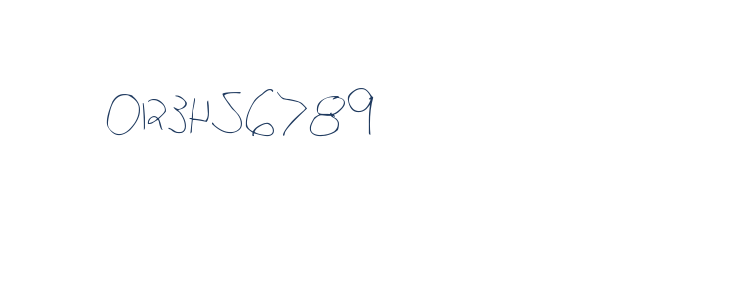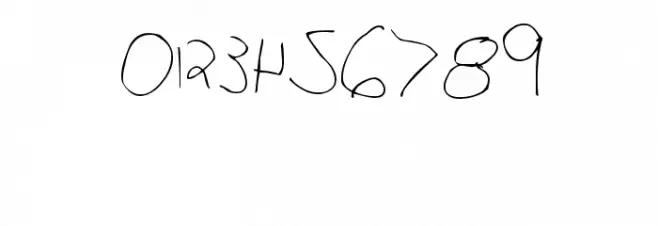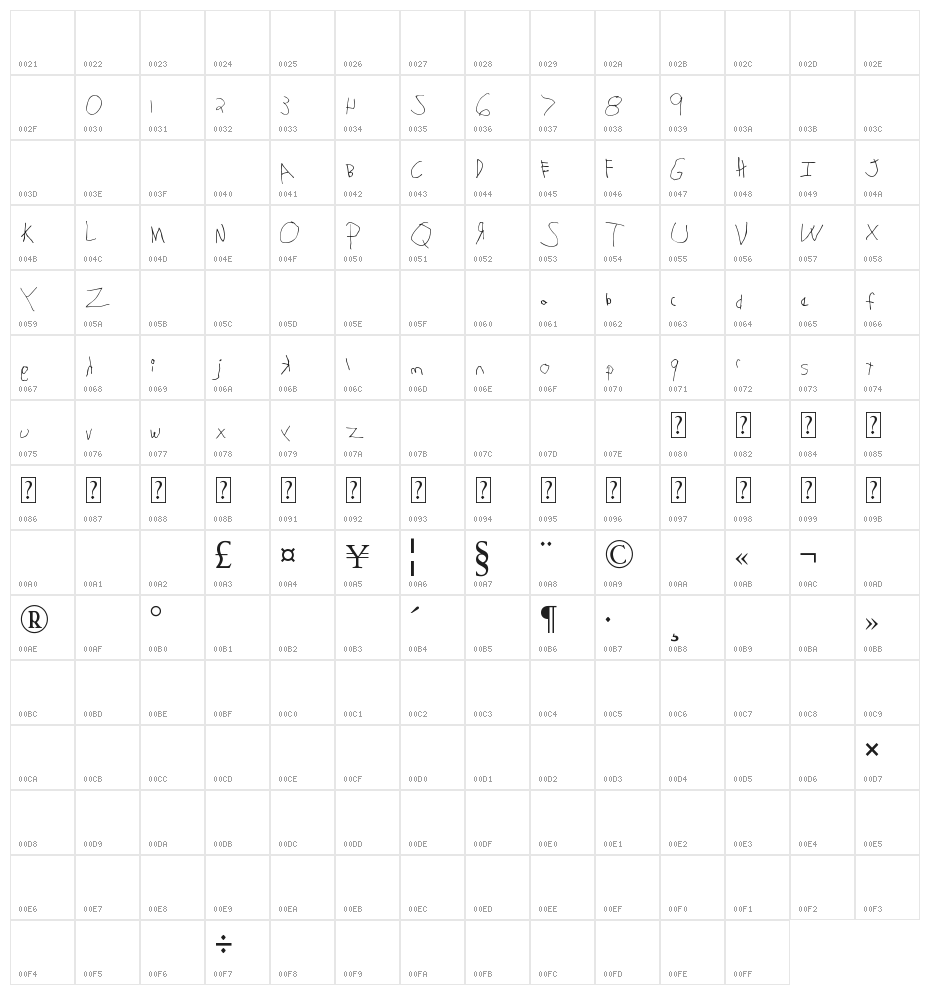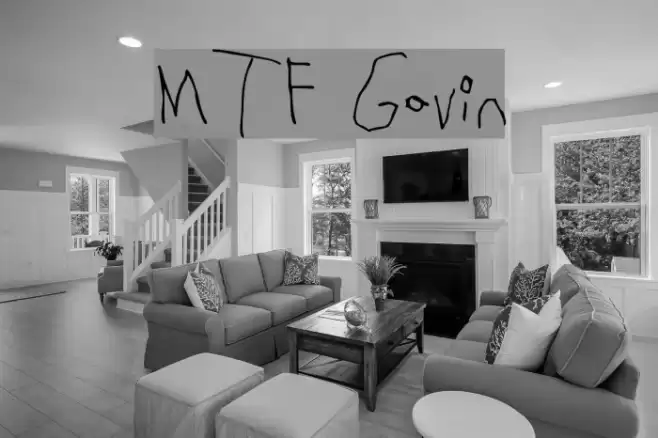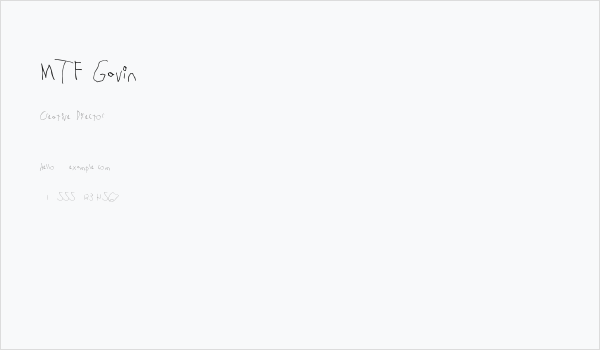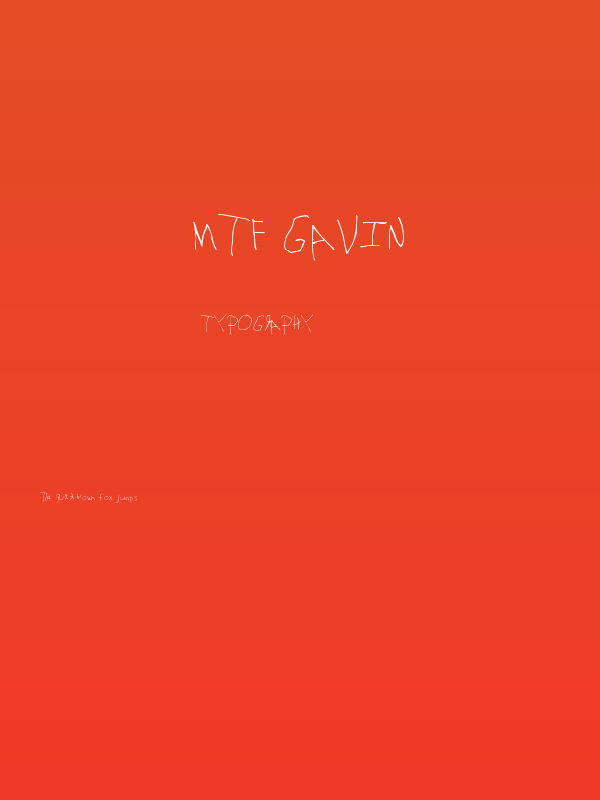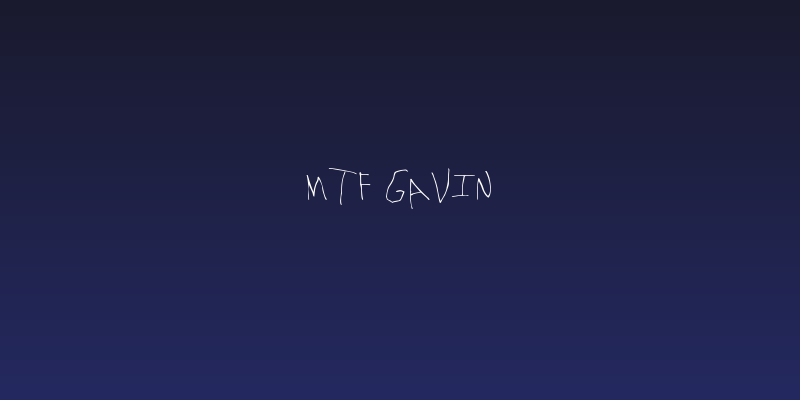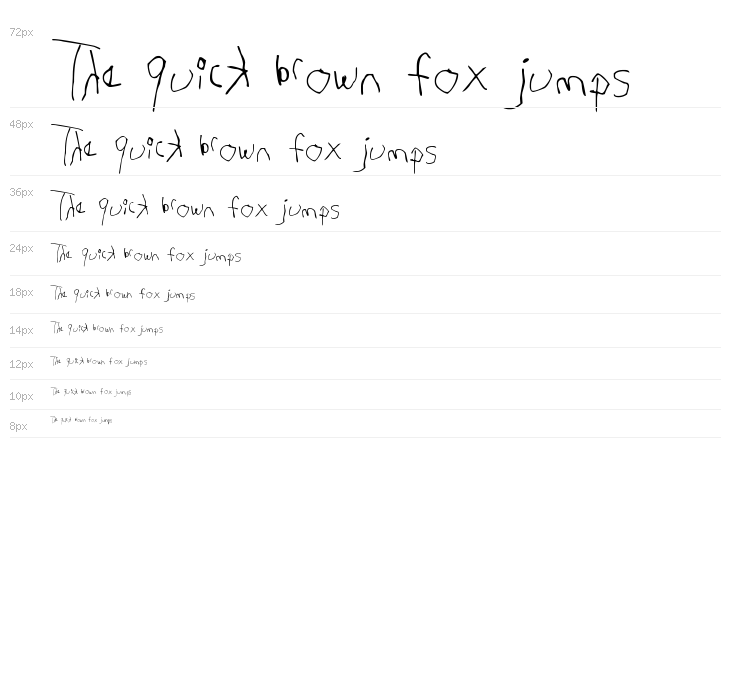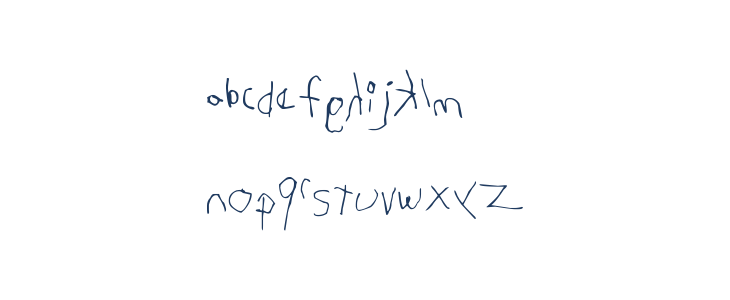
MTF Gavin Font
MTF Gavin Description
This font exhibits a playful and informal handwritten style, characterized by its irregular and spontaneous strokes. The letters are unevenly sized and spaced, giving it a casual and whimsical appearance. The uppercase and lowercase letters maintain a consistent style, with a slightly tilted and freeform structure. The numbers follow the same playful aesthetic, adding to the font's overall charm. The special characters are integrated seamlessly, maintaining the font's unique and quirky personality. This font is perfect for projects that require a personal touch or a sense of creativity and fun.
| Use Case | Creative projects, informal designs, personal notes. |
| Proposed Projects | Ideal for greeting cards, children's books, creative posters, and informal invitations. |